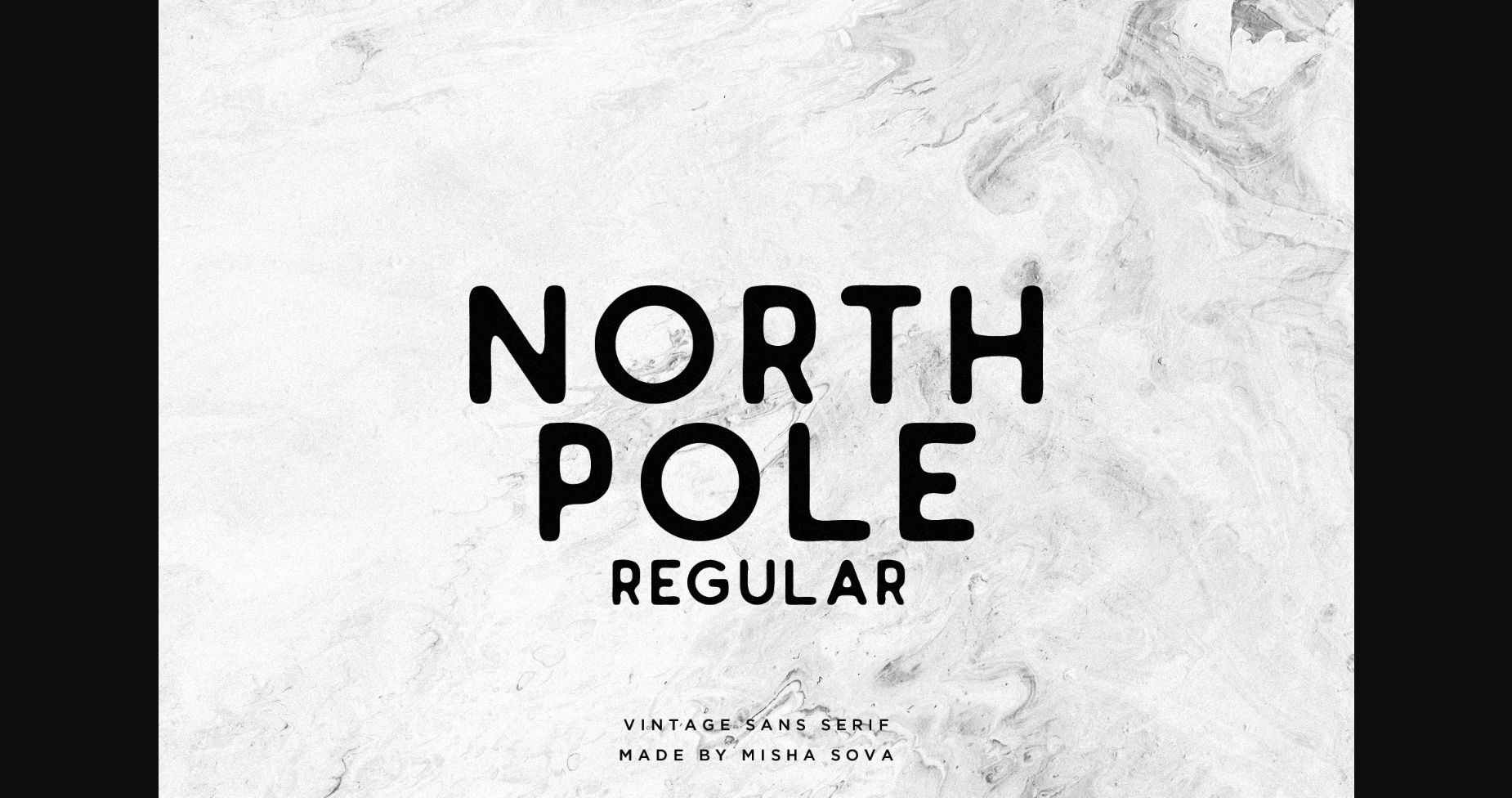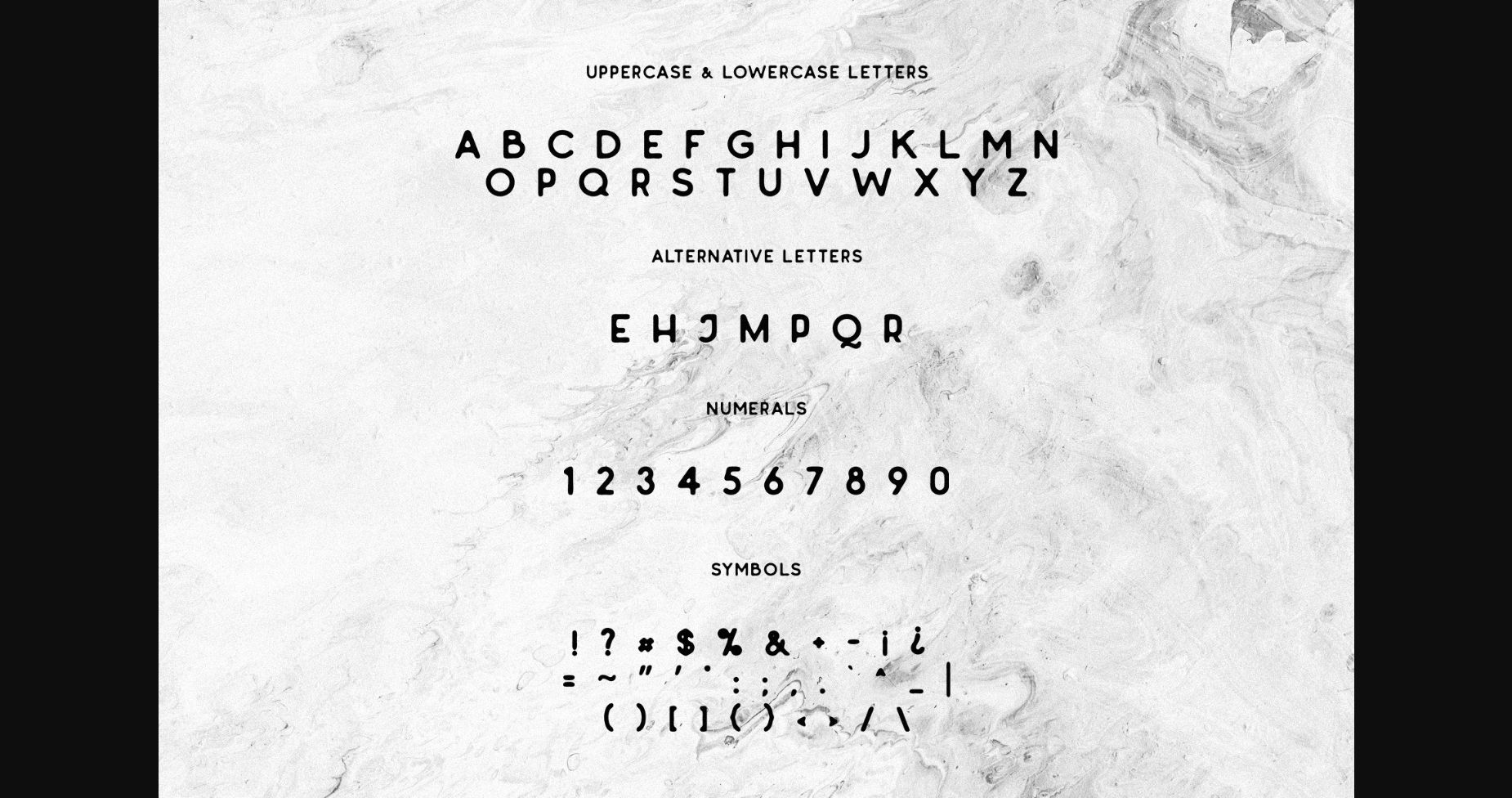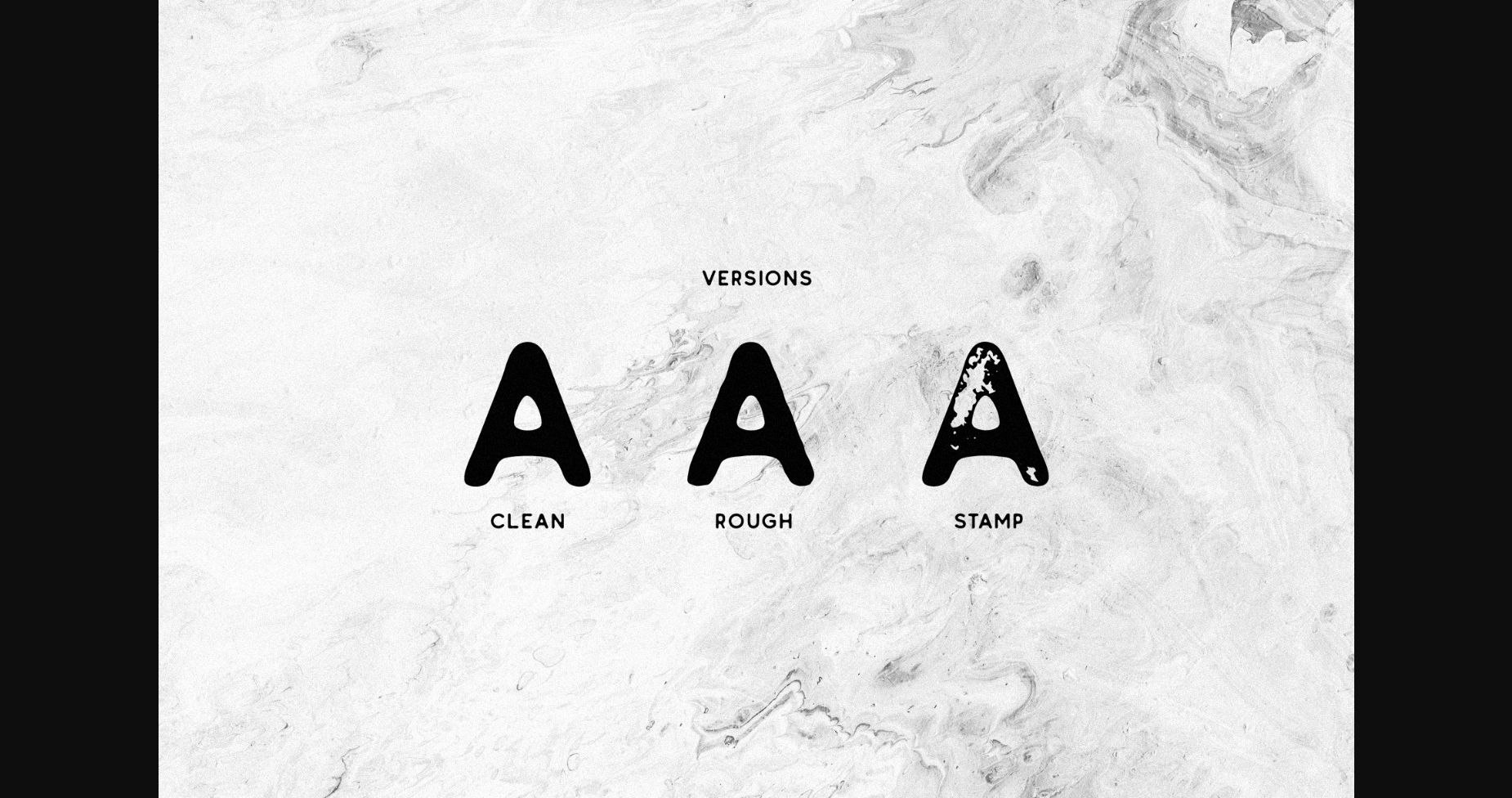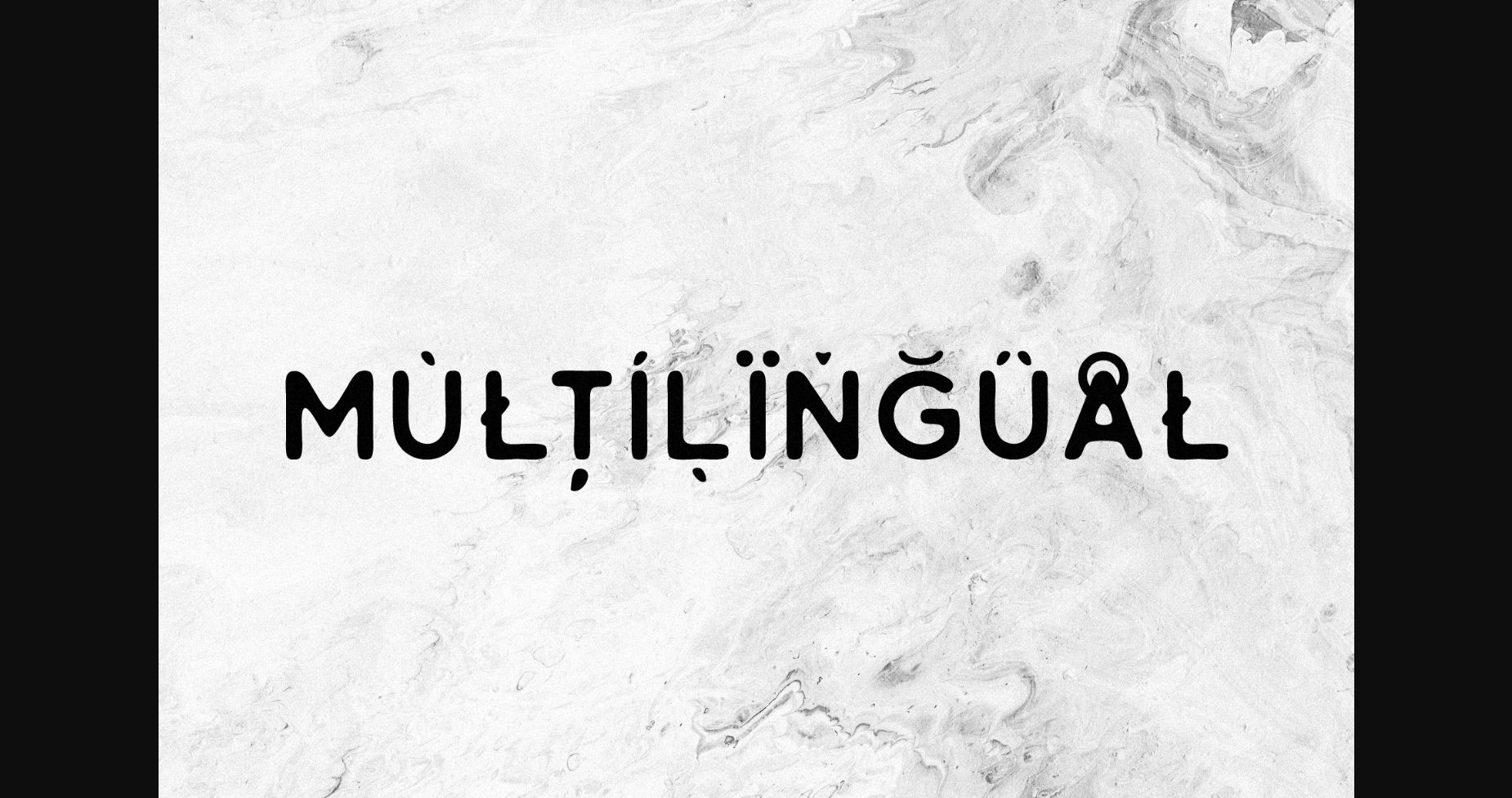
About North Pole Regular Font
North Pole is a sans serif display font. The main goal was to bring vintage feelings and uniqueness to the font by creating a similarity to a classical sans serif fonts & adding special alternative letters. The font is great for posters, logos, t-shirts & etc.